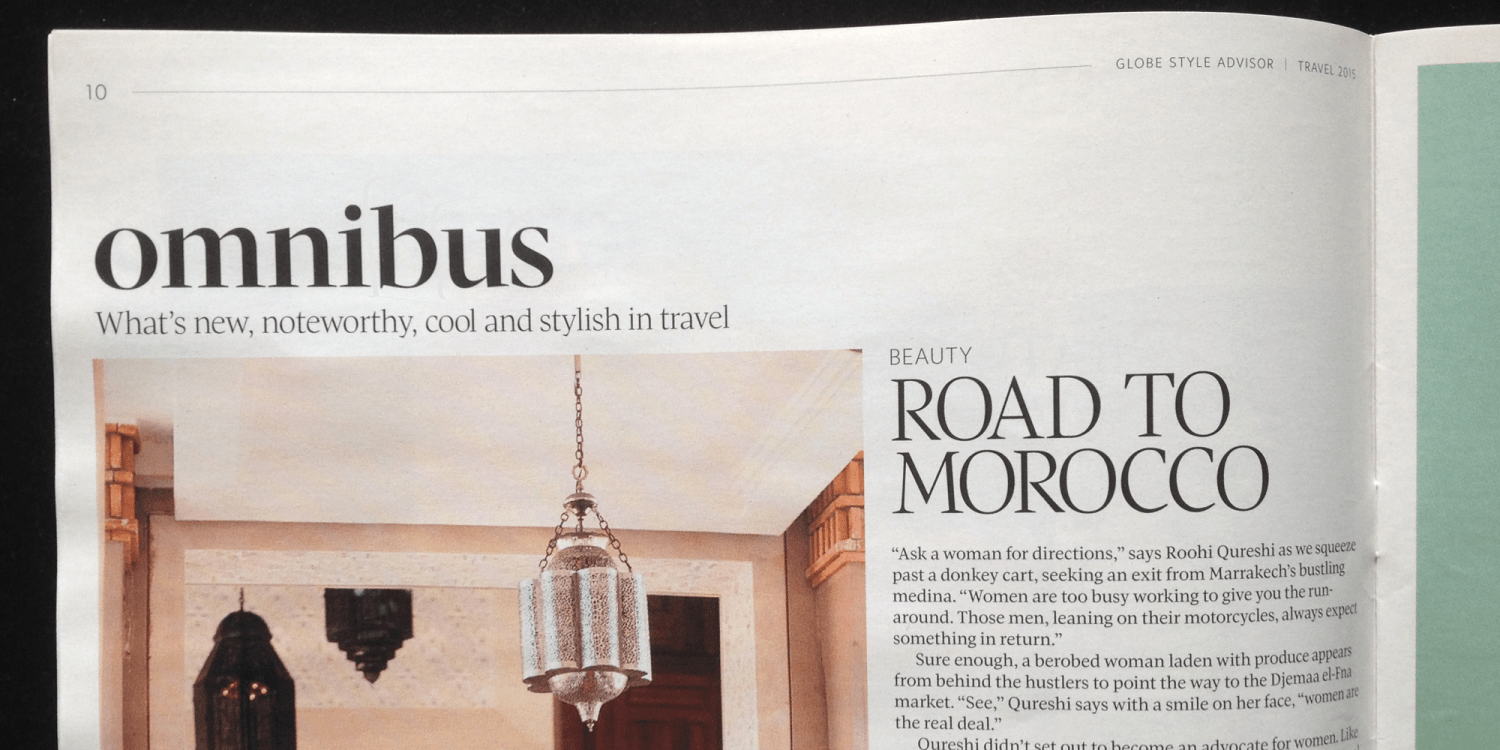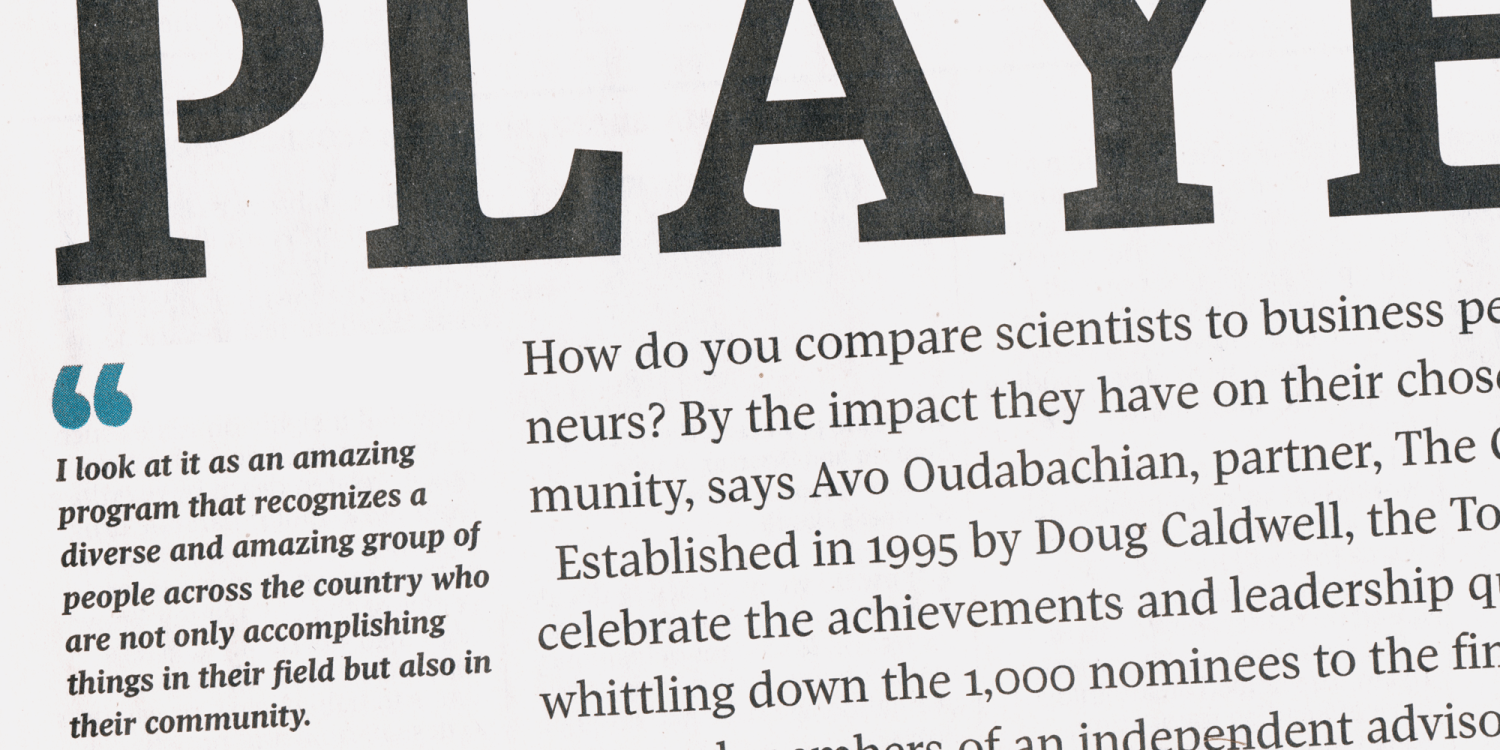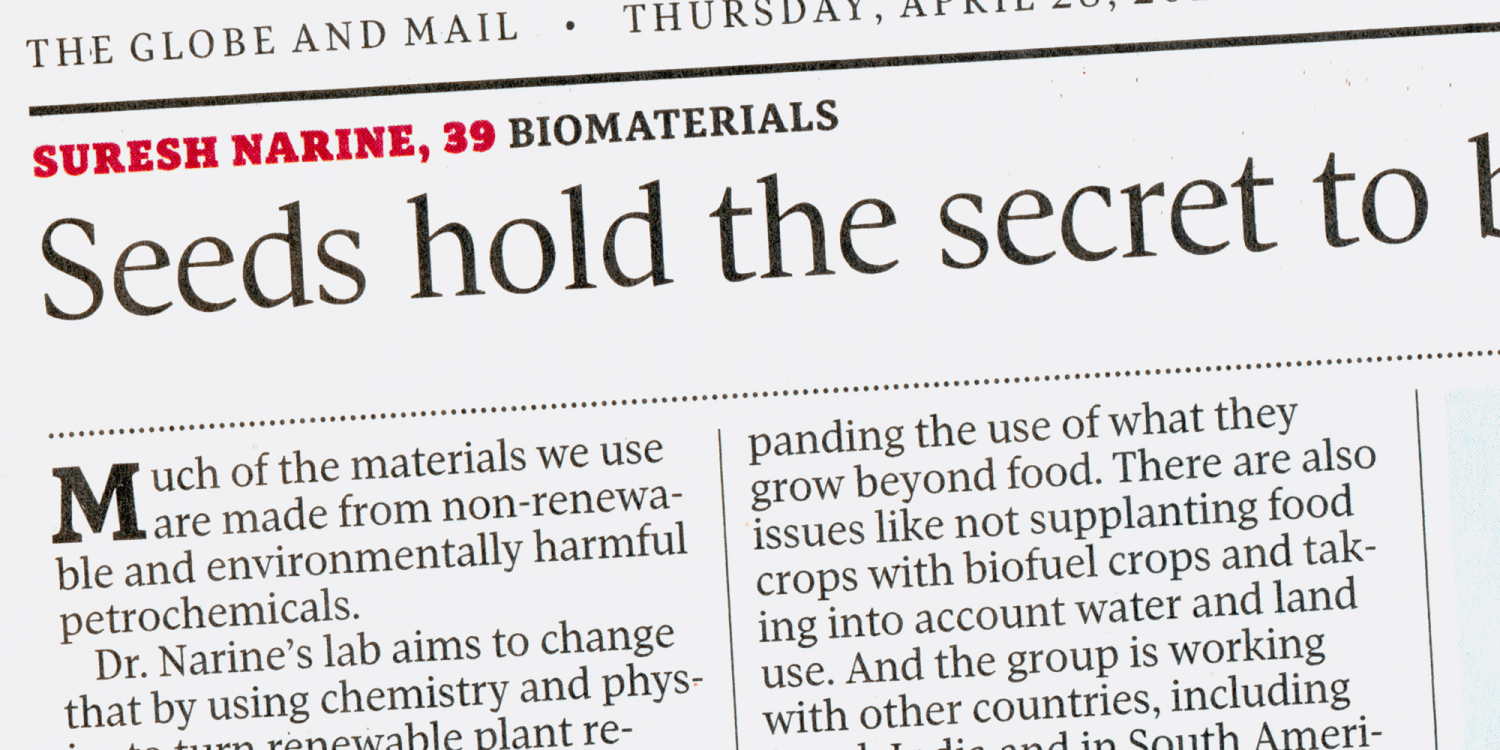
About Pratt Nova
Shaped by constraint to accommodate a large character count, Pratt Nova has massive form: semi-condensed, large x-height, short descenders and capitals. And yet it transcends its restrictive origins in abundance, expressing a spirit of visual and semantic…